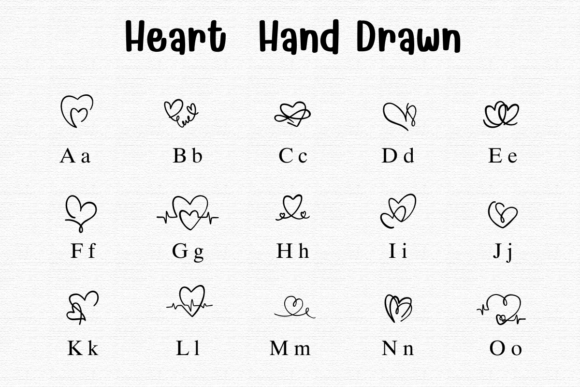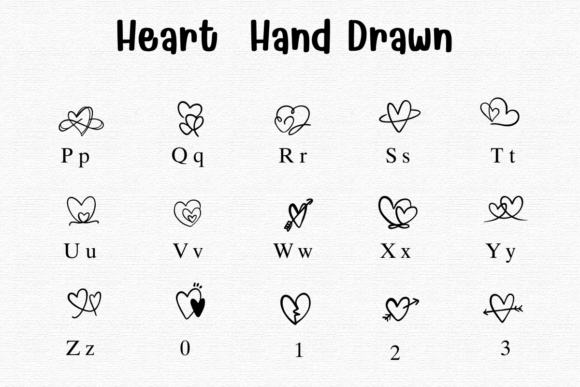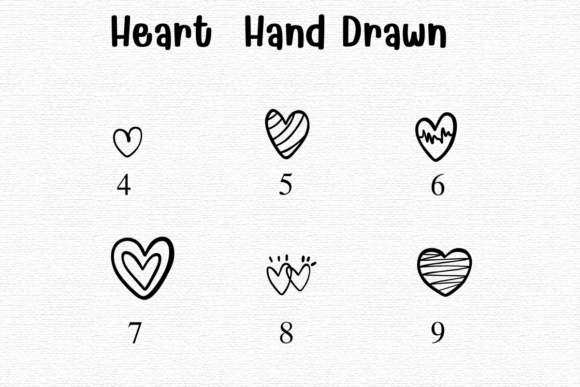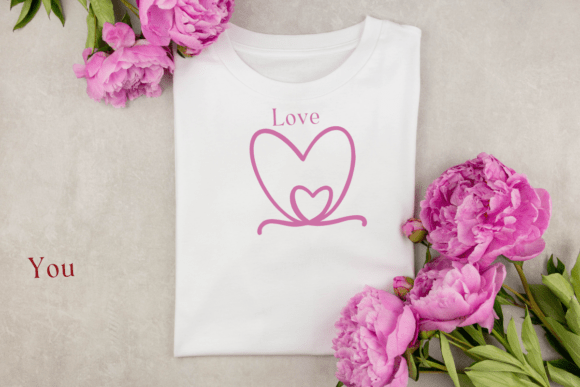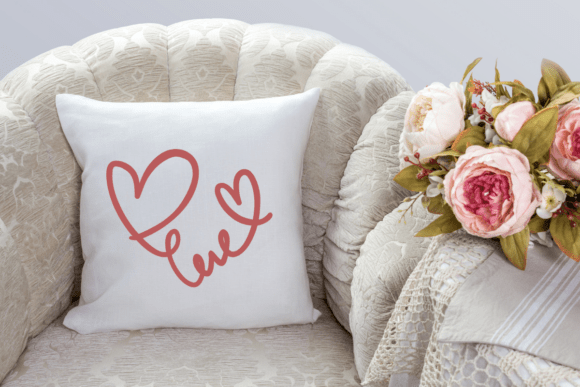
Heart Hand Drawn Font – Free Download
Introduction to Heart Hand Drawn Font
Bring a touch of hand-drawn affection and spontaneous charm to your designs with the “Heart Hand Drawn” dingbats font.
This delightful collection features a wide variety of unique and expressive heart doodles, perfect for adding a playful, romantic, or cute touch to any project Inside, you’ll find an array of hearts: simple outlines, entwined pairs, hearts pierced by arrows, swirling loops, and dynamic, scribbled designs—rendered in both a bold, dark line and a rich red.
Key Features of Heart Hand Drawn Font